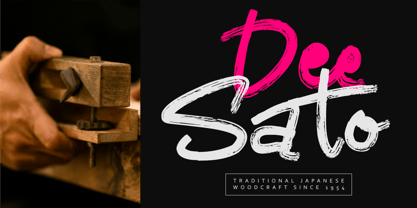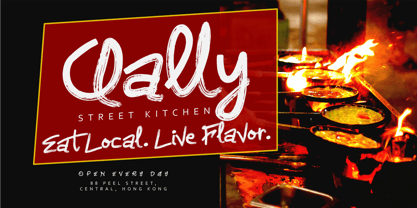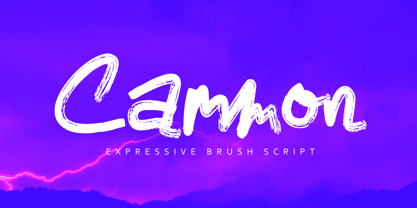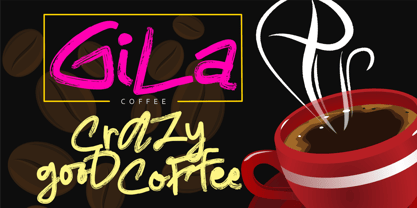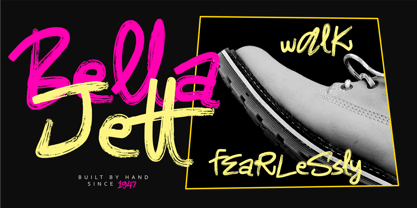
Cammon
La familia tipográfica Cammon fue diseñada por Aldy Sidik y publicada por Epiclinez. Cammon contiene 1 estilos. Más información sobre esta familia
Cammon is an expressive brush script font that captures the beauty of natural hand-lettering with bold strokes, flowing curves, and authentic brush textures. Designed to bring energy and personality to every project, Cammon delivers a handcrafted look that feels both artistic and professional. Its smooth rhythm and expressive character make it perfect for logos, branding, packaging, apparel, social media graphics, product labels, wedding designs, posters, and creative marketing materials. Whether you're creating a modern lifestyle brand, a signature logo, or eye-catching typography, Cammon adds warmth, movement, and authenticity to your designs.